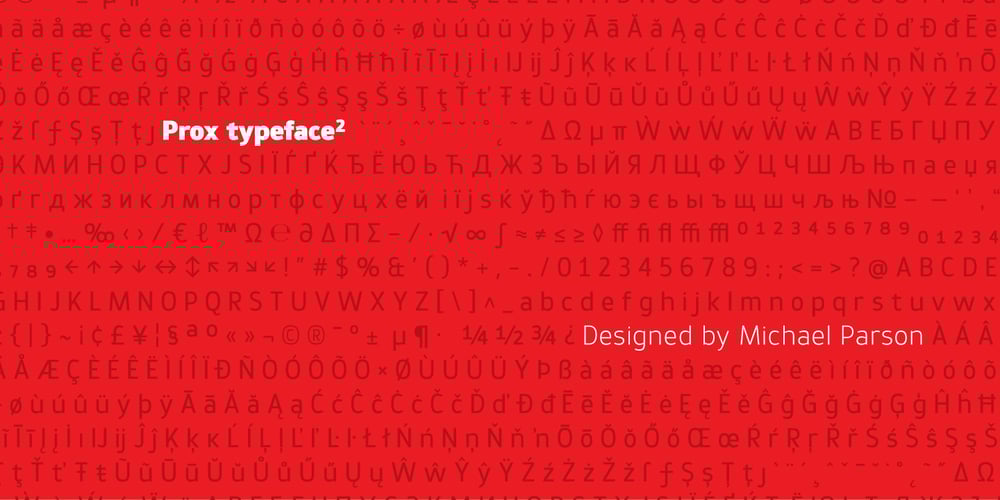
Prox
Prox font
Prox Font Family was designed by Michael Parson and published by Typogama. Prox contains 21 styles and family package options. Prox is a humanist sans-serif typeface destined for use in all settings and mediums. Conceived as a simple, economical design, this family of twenty styles includes a large character set that covers both the Latin and Cyrillic script. The addition of Opentype features includes a selection of numerals, from lining to hanging and includes fractions or ligatures. Delivered as static weights or as a single Variable font.